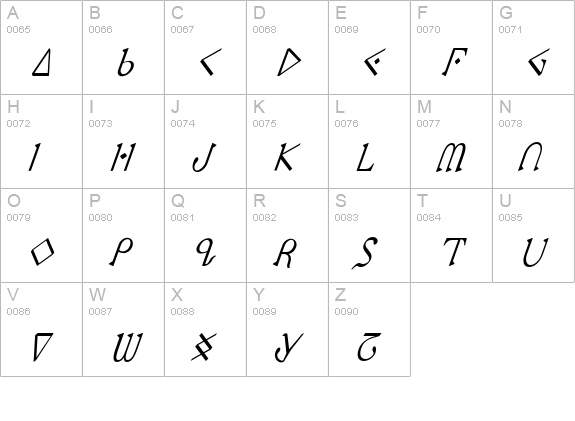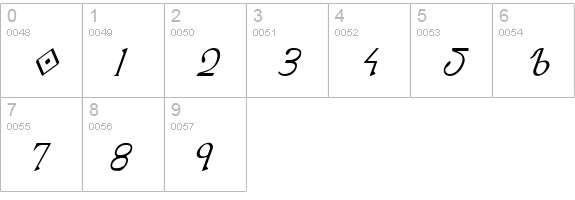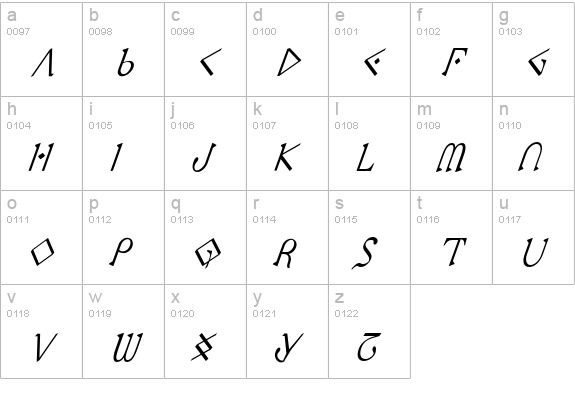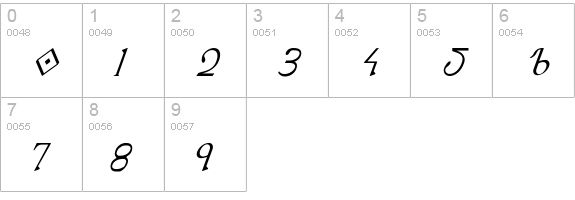
Presley Press CondItal font is a stunning display typeface that exudes elegance and sophistication. Its sleek and modern design is perfect for adding a touch of luxury to any project. The italicized style of this font gives it a unique and stylish look that will make your designs stand out. What's even better is that Presley Press CondItal font is available for free download at FontsMarket.com. This means you can easily access this beautiful font and use it in your personal or commercial projects without any cost. Don't miss out on the opportunity to elevate your designs with this exquisite font that is both eye-catching and versatile. Download Presley Press CondItal font today and take your projects to the next level!